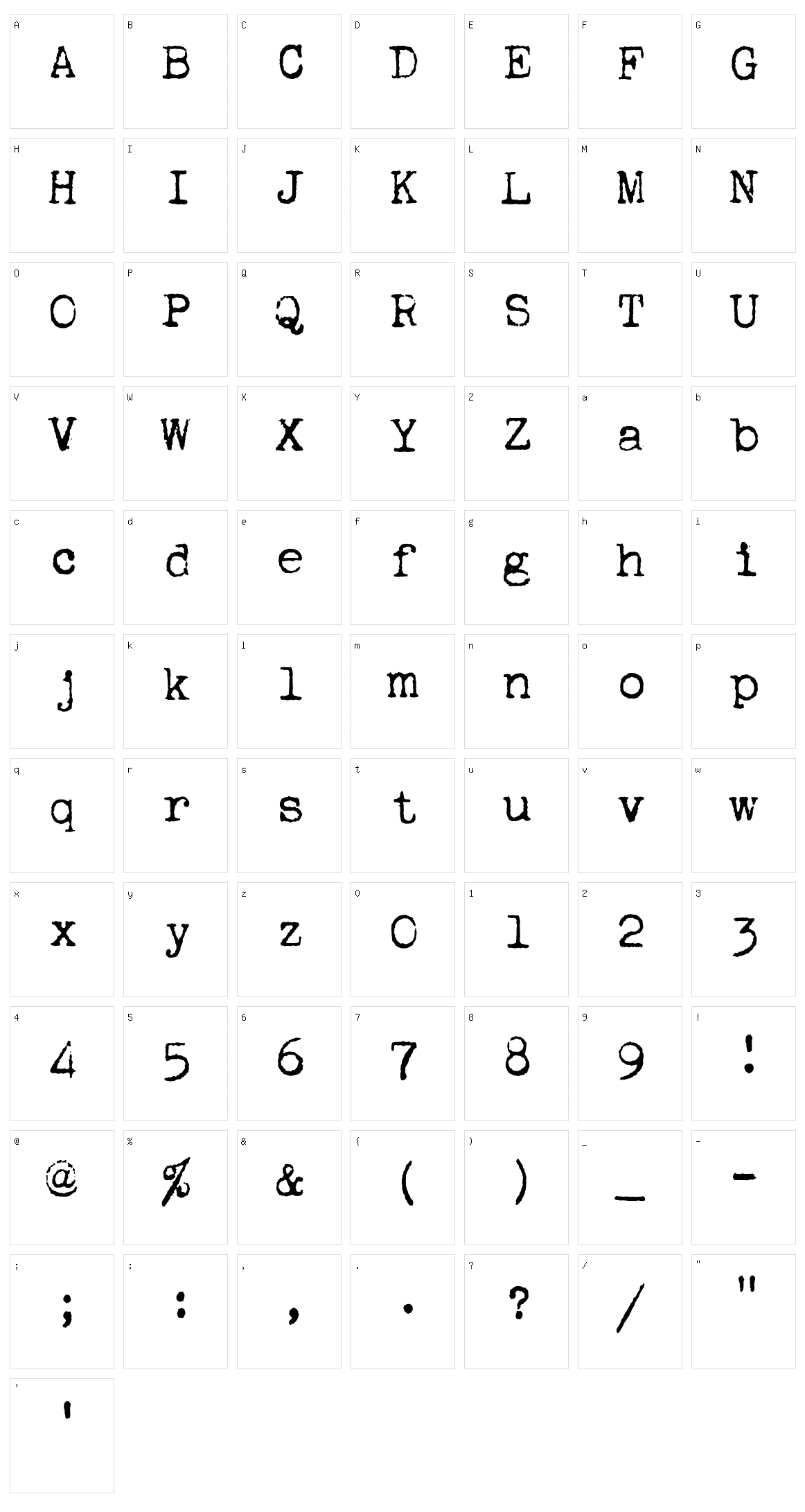
The free font Corona 4 Typewriter is carefully designed by Aleksandar Stevanov, showcasing a thoughtful balance of creativity and usability and falls under the Typewriter font style. When you download the ZIP file, it contains only 45.45 KB of font files, making it lightweight and quick to download. Please review the license details below to understand permitted usage and distribution rights. If license information is not available, we recommend using this font for personal projects only or contacting the author directly for commercial usage permissions.